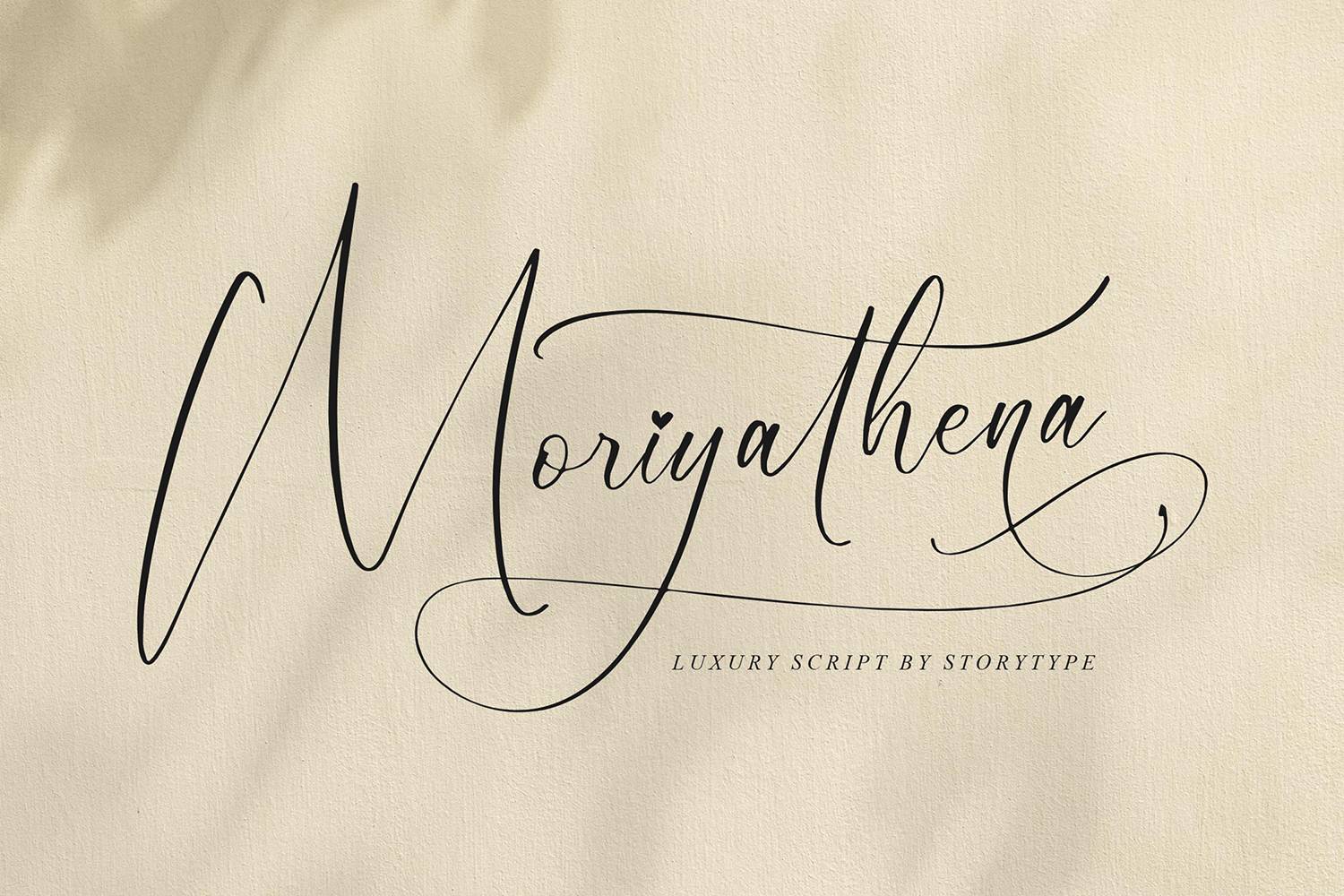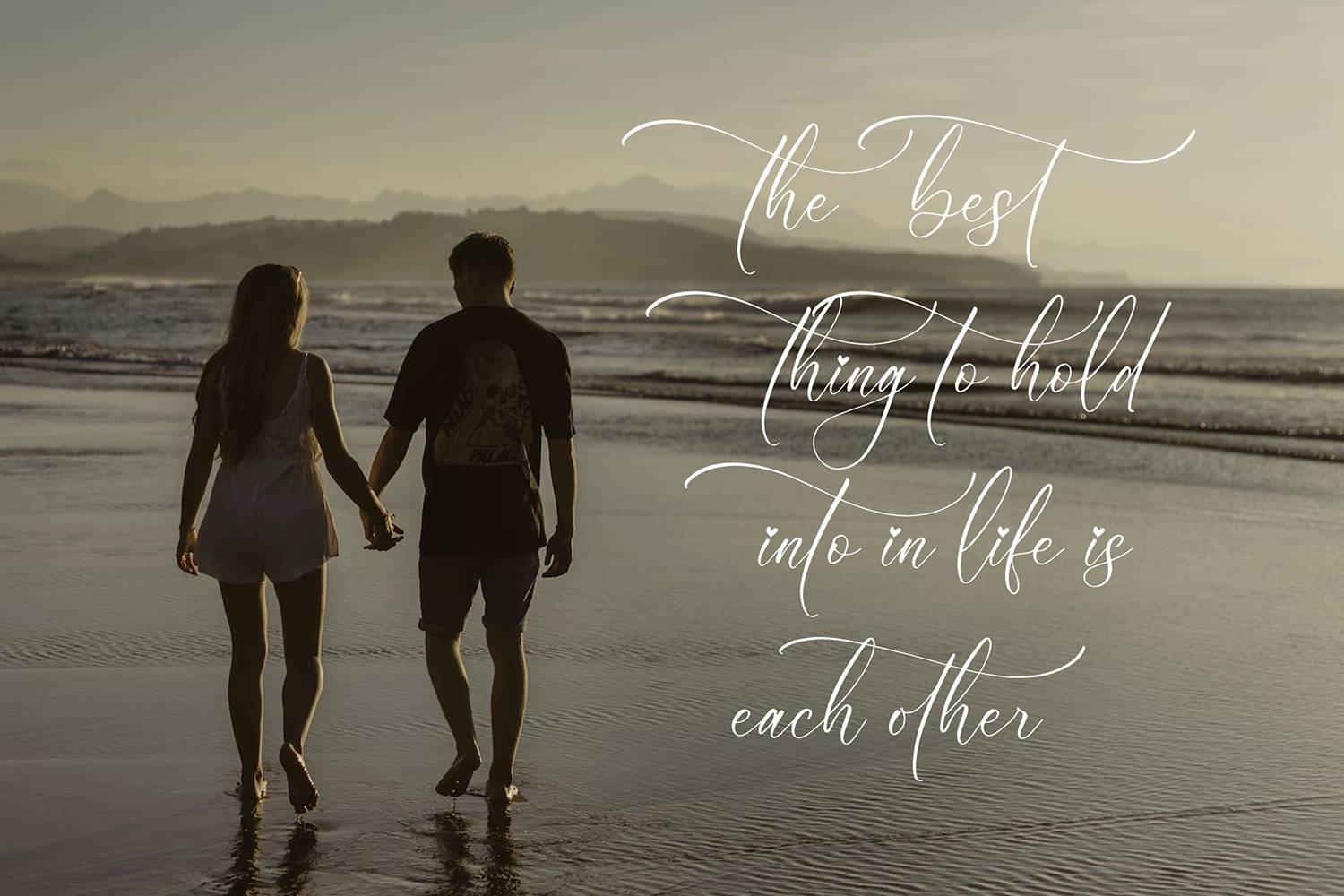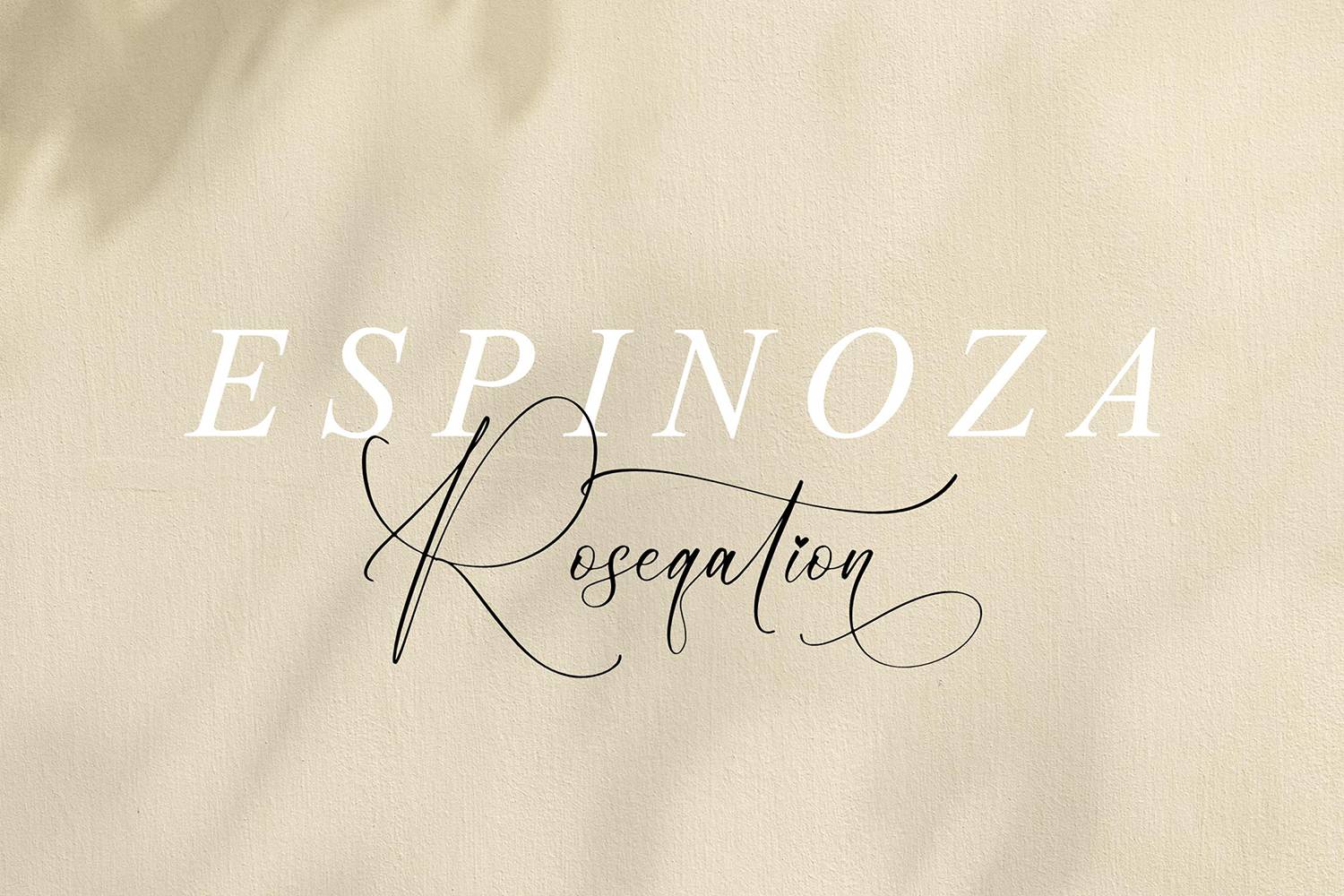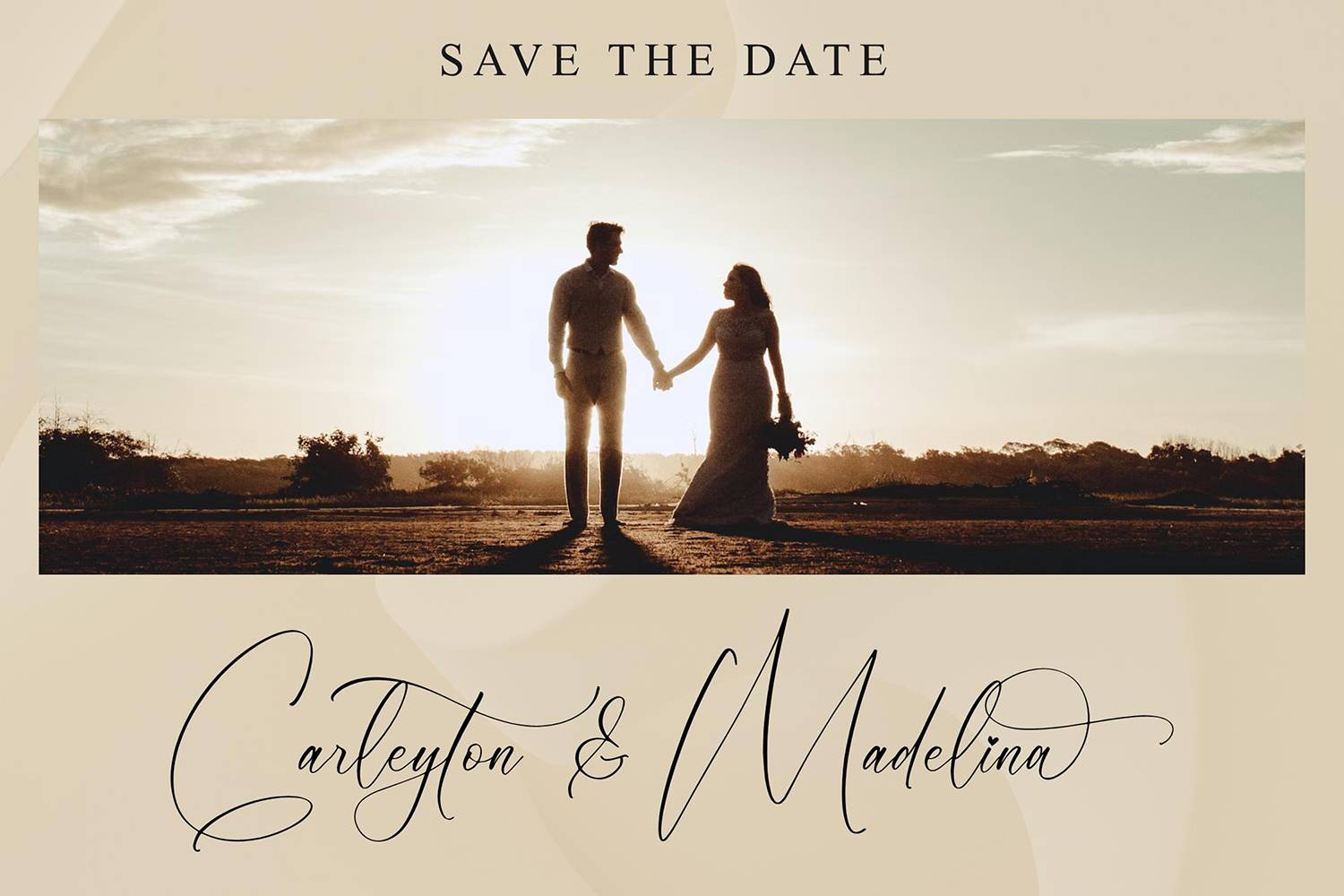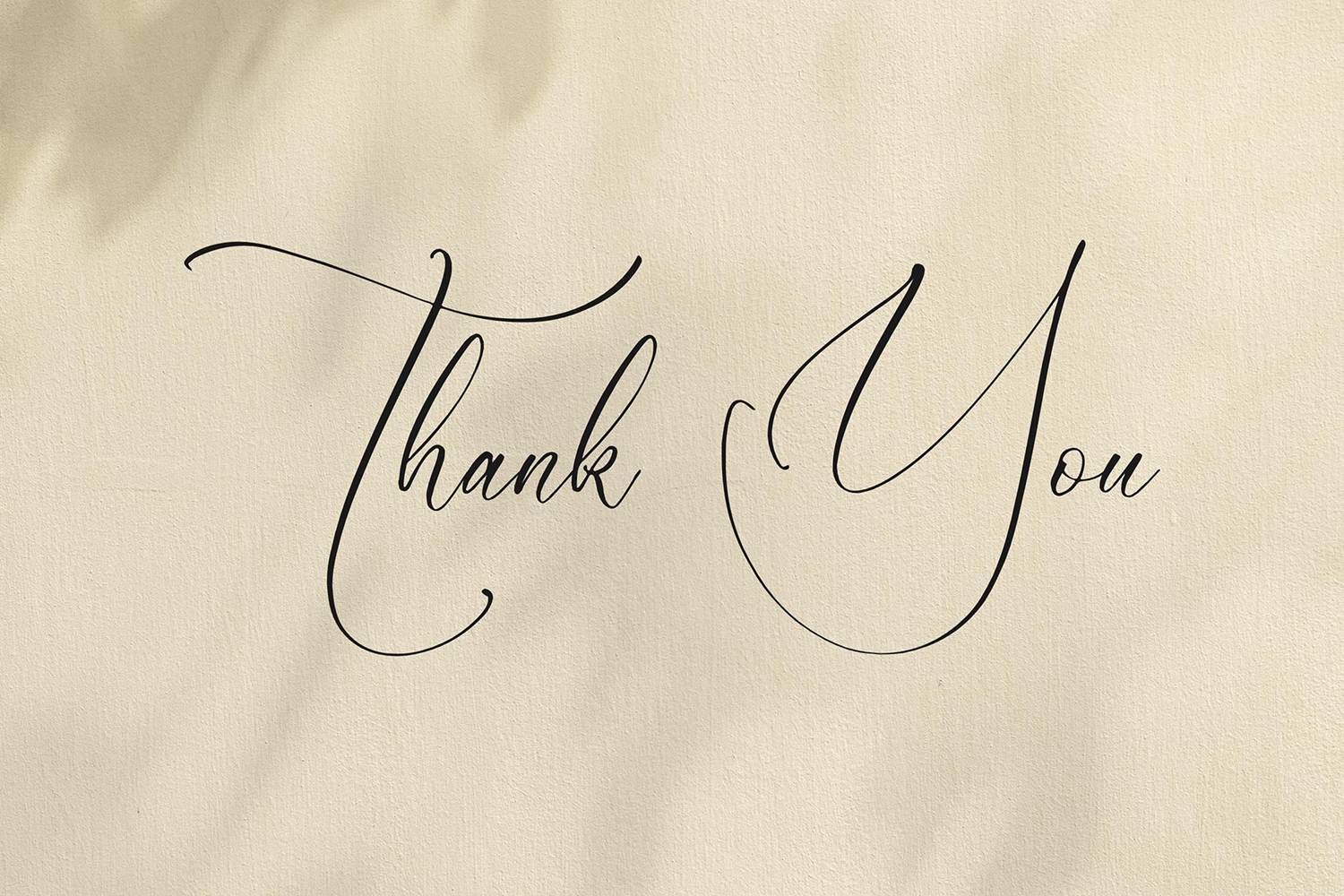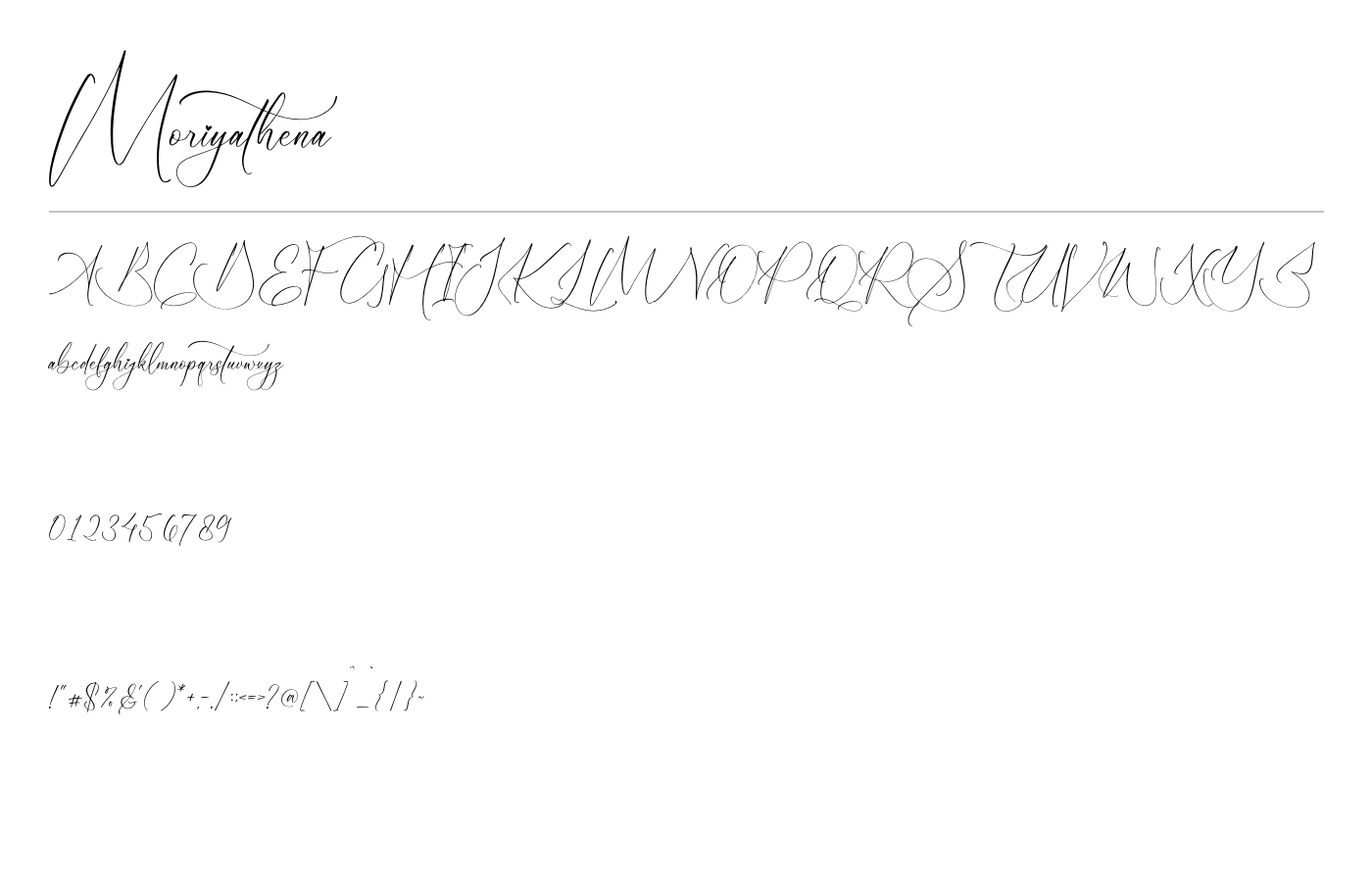
Moriyathena is an elegant, delicate script font with fine, flowing strokes that capture a sense of sophisticated handwritten calligraphy. Its tall, slender letterforms and graceful curves make it perfect for luxury branding, wedding invitations, and other design projects that require a refined, artistic touch. This font shines in uses where elegance and style are paramount, especially in large sizes for headlines or logos.
Moriyathena Font